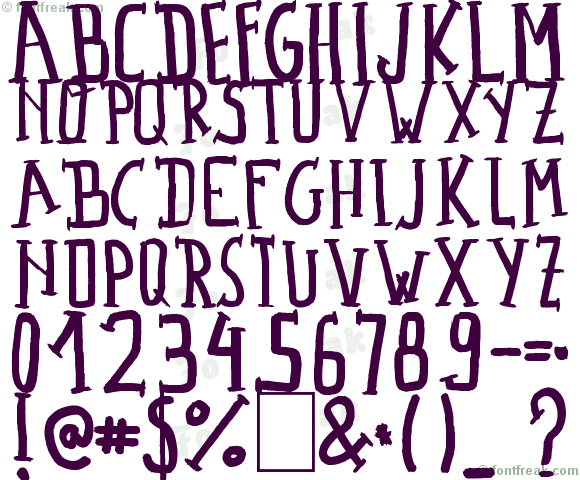
Madalen Letter
About Madalen Letter
Madalen Letter is a distinctive display font crafted by Leonard Posavec in 2015. This font falls into the decorative category, showcasing a unique blend of artistic flair and contemporary design. The visual characteristics of Madalen Letter are particularly striking, with its irregular stroke weights and bold, uneven edges that evoke a hand-drawn aesthetic. The font exhibits a moderate contrast, giving it an appealing dynamism, while the spacing allows each character to stand out without feeling cramped, making it a perfect choice for eye-catching designs.
Ideal for a variety of creative applications, Madalen Letter shines brightly in settings like wedding invitations, where its artistic touch can add a personal element. It also works beautifully for movie posters, lending a unique character that can captivate audiences. Restaurant menus can benefit from its playful yet sophisticated style, setting the tone for an enjoyable dining experience. Additionally, small business branding materials can leverage this font to create a memorable identity that resonates with customers.
What sets the Madalen Letter font apart is its ability to merge artistic expression with functionality, creating a typeface that is not only visually appealing but also practical for a wide range of uses. For anyone looking to make a statement in their design work, the Madalen Letter font free download is an excellent resource that effortlessly enhances the overall aesthetic.